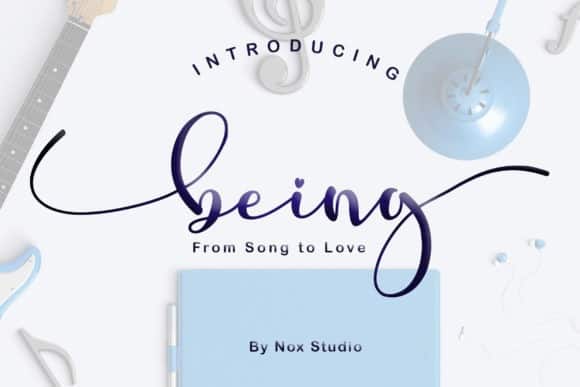
Being Human Calligraphy Font
Being Human Calligraphy Font, designed by Nox Studio is a beautiful modern calligraphy script font carefully created with a touch of romantic. No matter the topic, this font will be an incredibly asset to your fonts’ library, as it has the potential to elevate any creation.